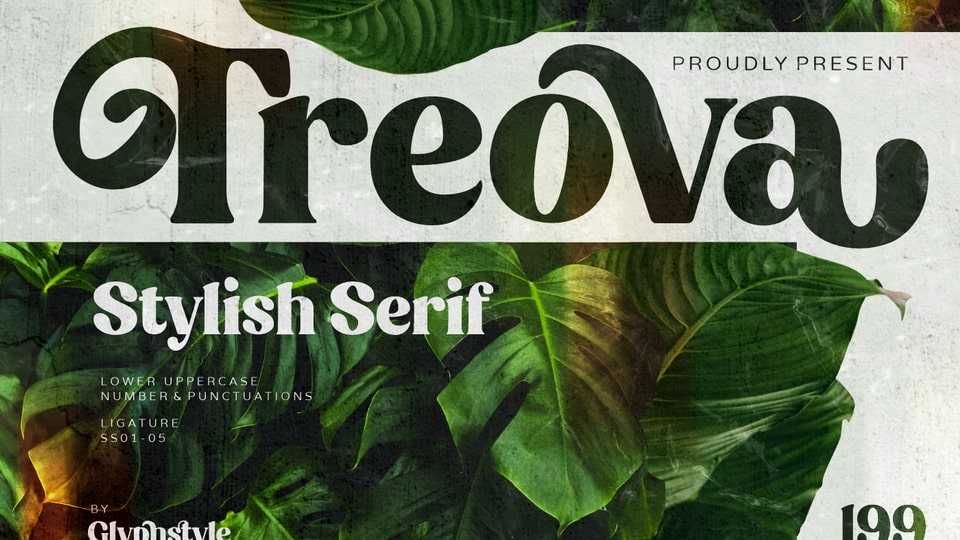
Download Treova font, a decorative display serif typeface that looks stylish. The stiff serif shape becomes fluid with the right combination of curves.